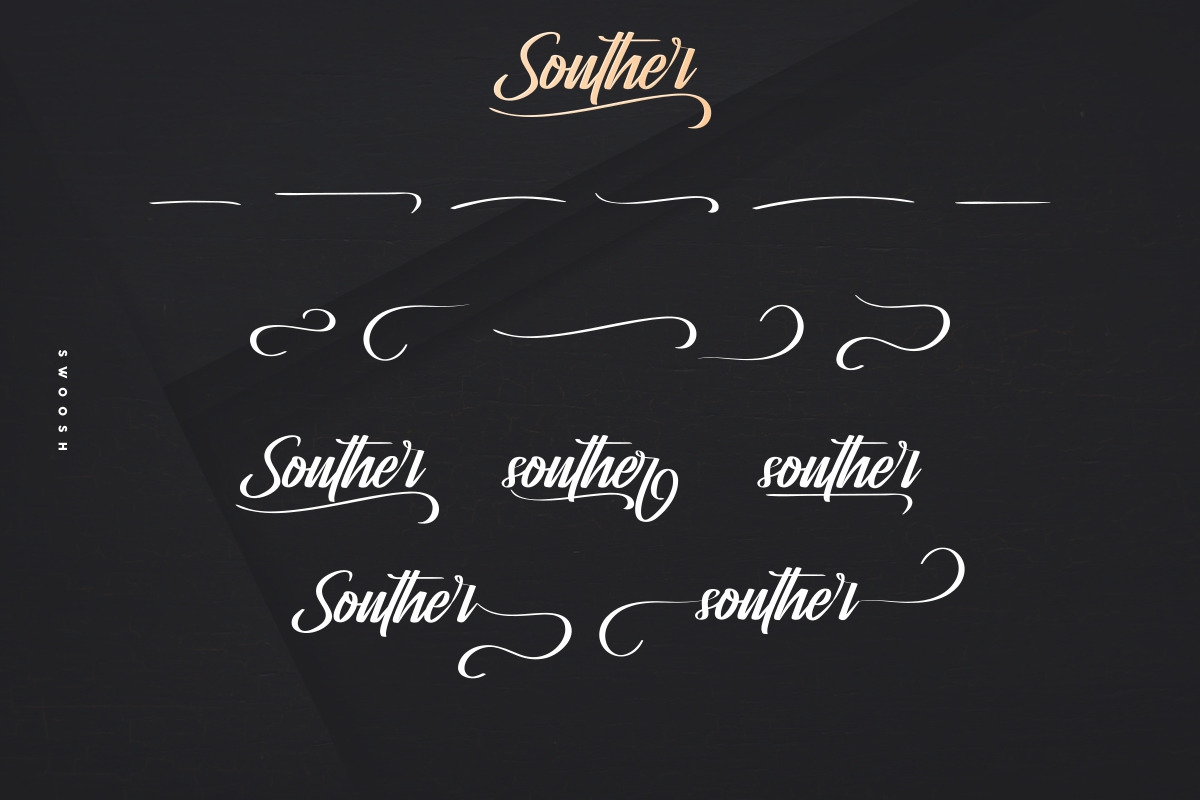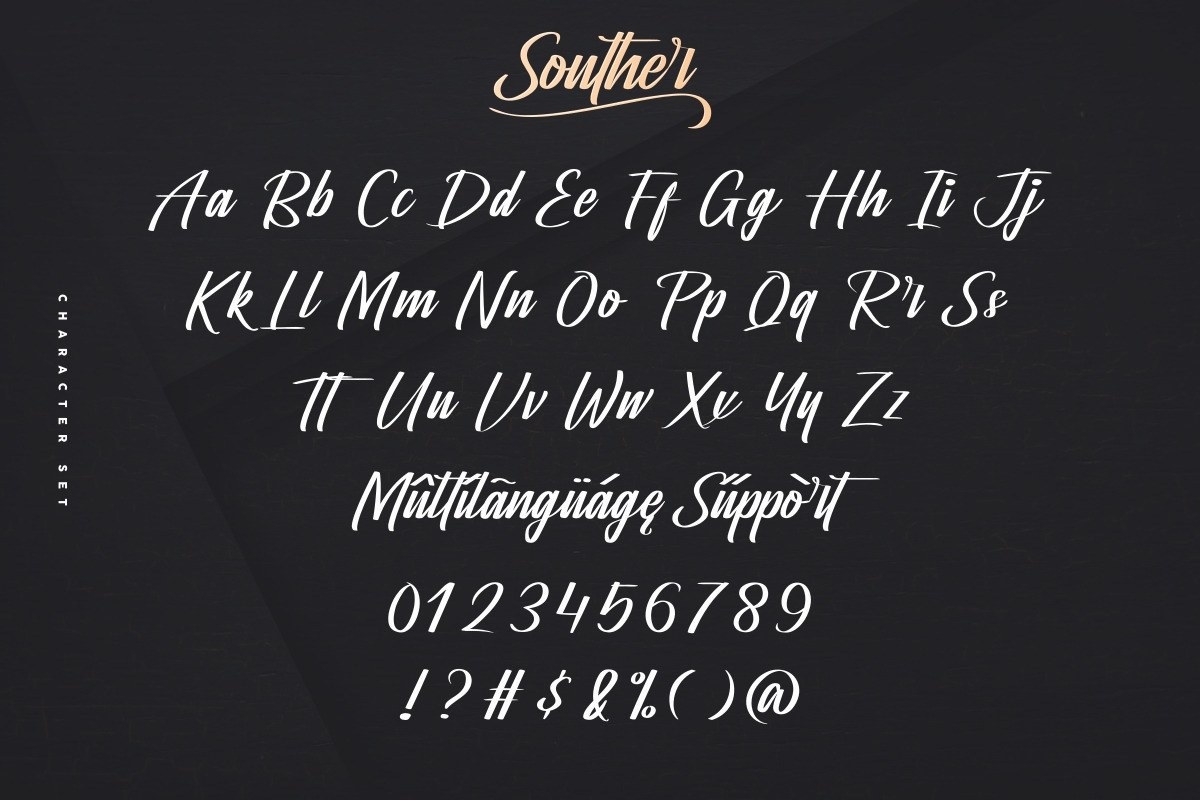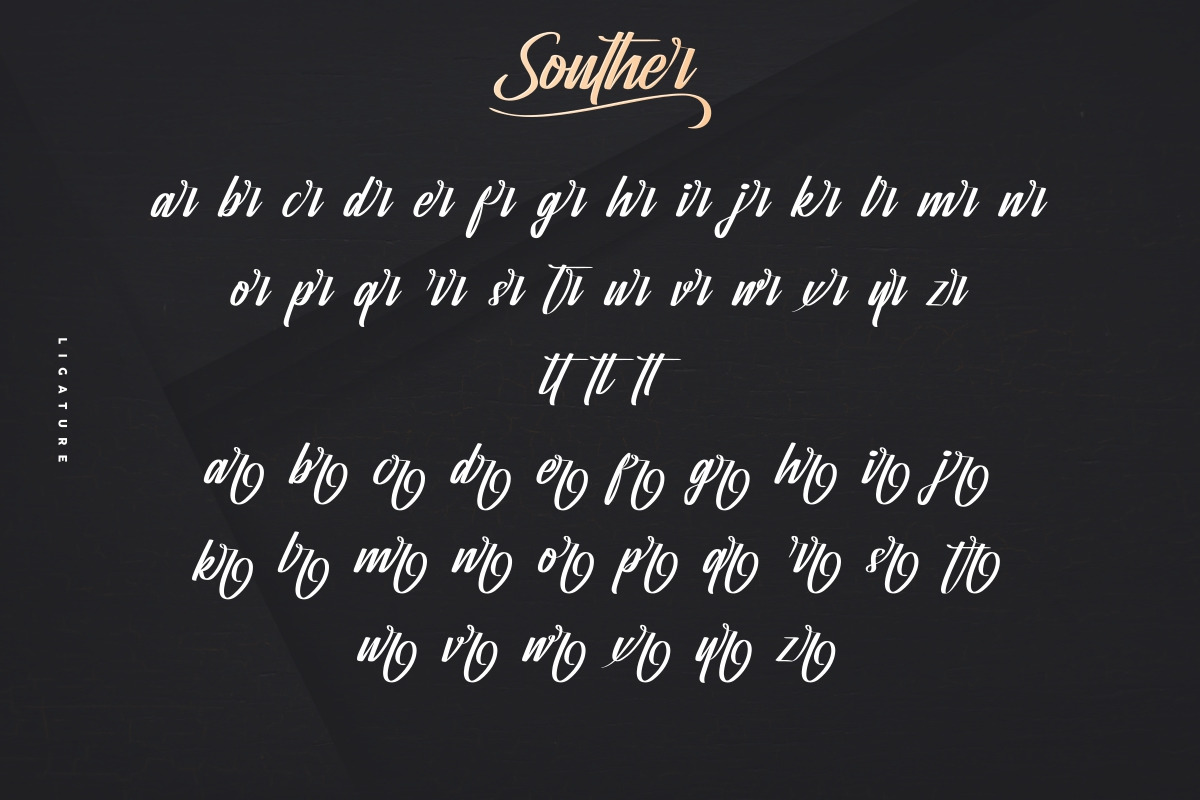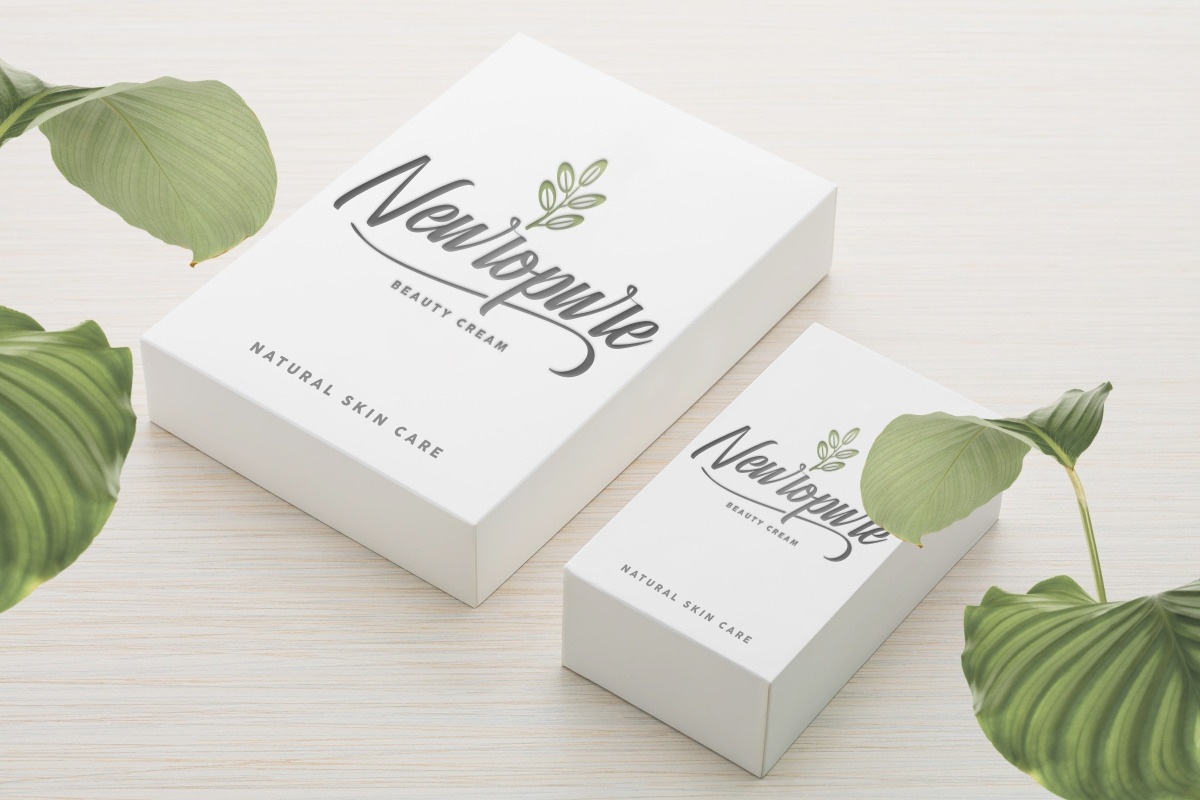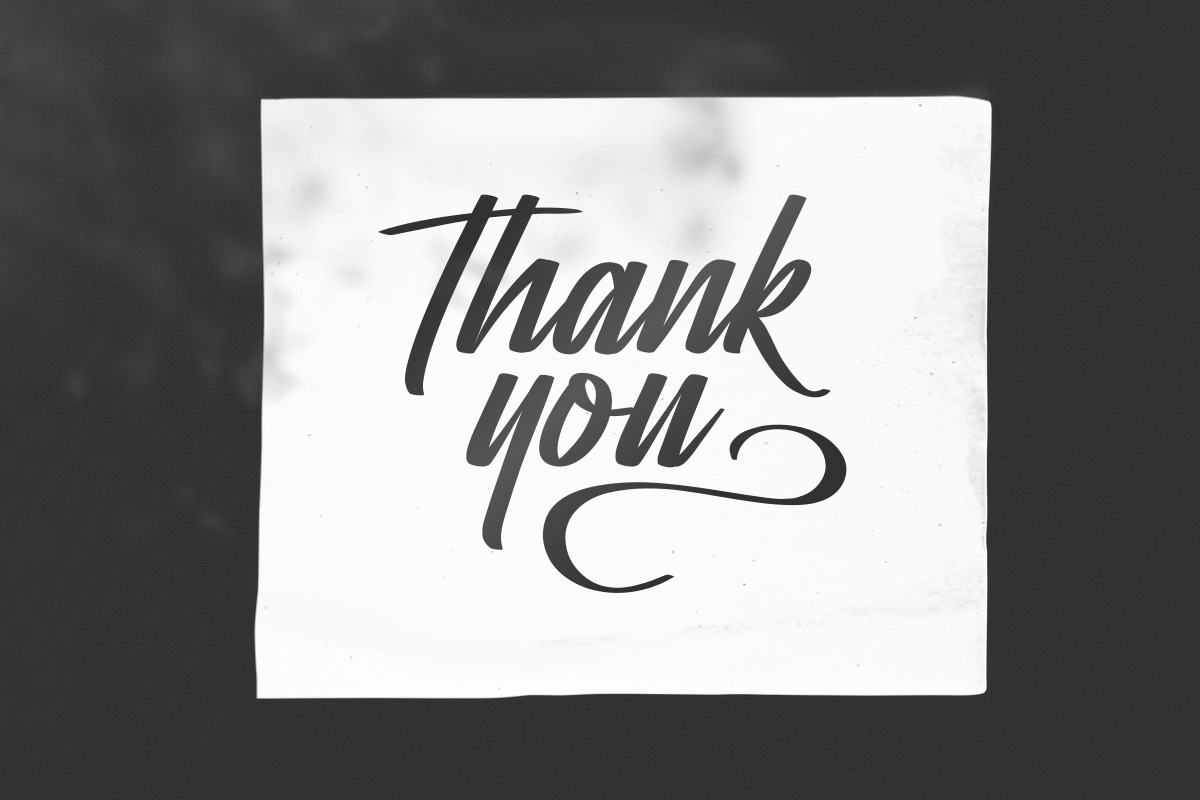
Souther Calligraphy Font
Souther Font is a Hand brush script font. The style of this font are contemporer, oldschool, elegant, luxury and classic brush font. Almost all industries will be match for this typeface: wedding, events, real estate, architect, law firm, florist, gardening, makeup artist, travel, hotel, musician etc